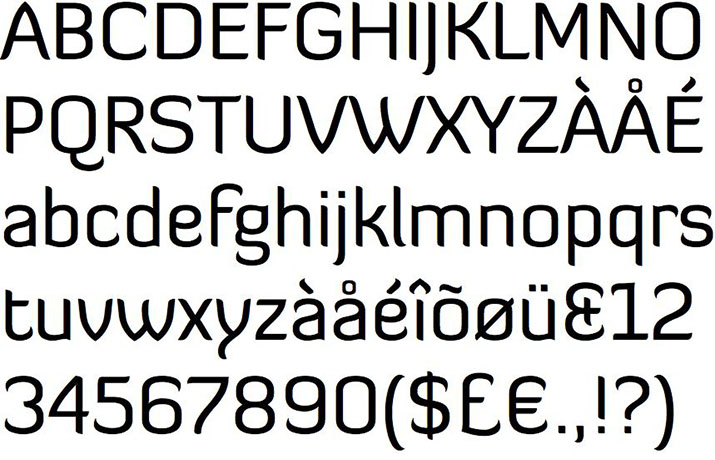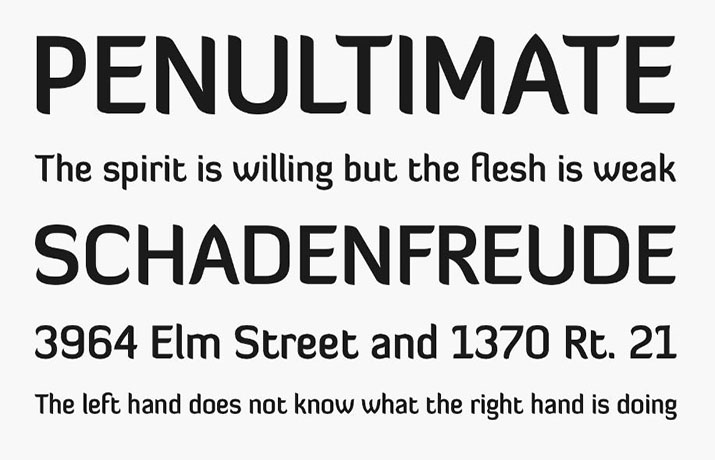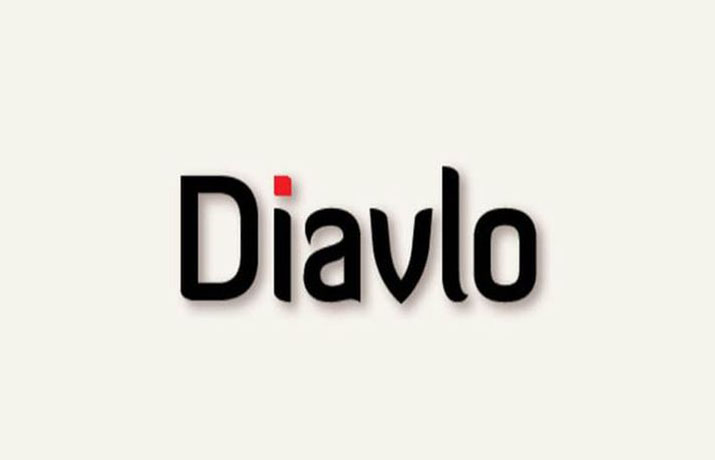
Diavlo Font is an elegant sans serif typeface that comes with a sharp and edgy display look. It was designed and published by Exljbris.
It’s an innovative striking type that has a modern jiggly appearance. Its texture creates sharp, angular, distinctive lines, which surely gives a unique appearance.
It becomes a better choice for display and printing tasks. And give unique designs where you should apply. Try it out for posters, banners, headers, titles, logos, branding, packaging, and more.
“Diavlo typeface is available in 5 weights: medium, bold, light, Black, and book with True Type file format. This font family includes 360 glyphs and 250 binary stored kerning pairs. Moreover, it also supports 83 languages.”
- You can use book covers, distinctive signs, game titles, cartoon posters, special event cards, product designs, banners, headers, flyers, signs, movie posters, headlines, brand logos, YouTube thumbnails, banners, headers, signs, display headers, can make brochures, and many other things with its bold and thick texture.